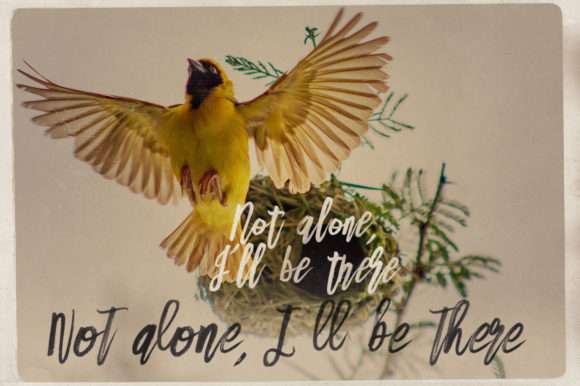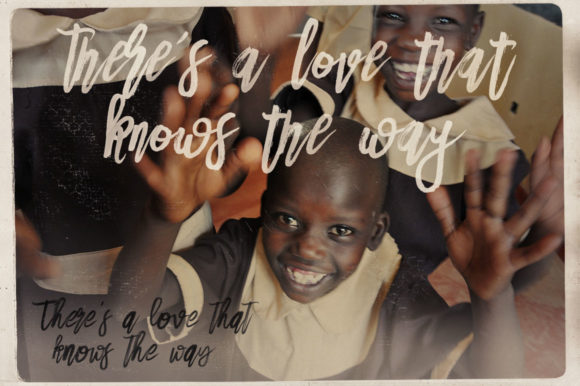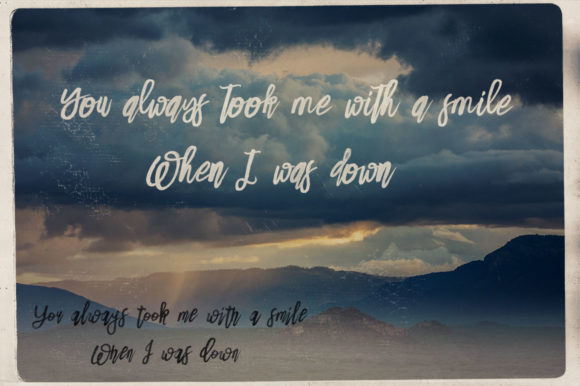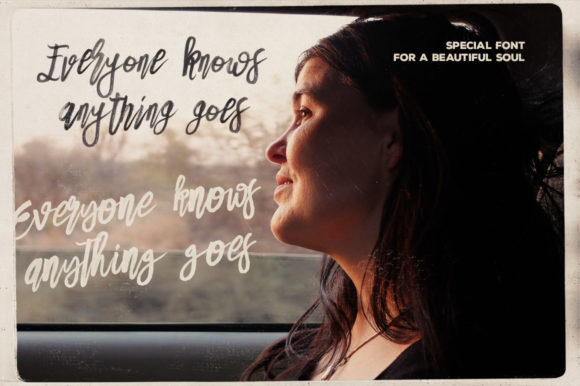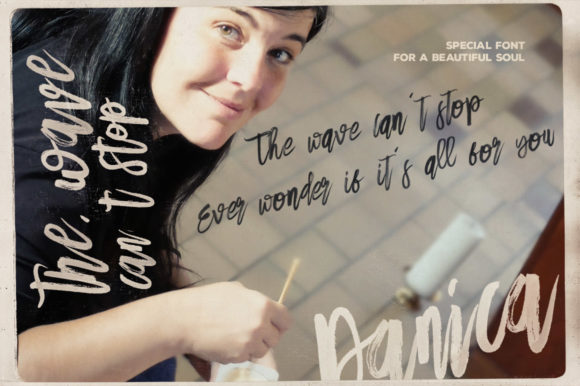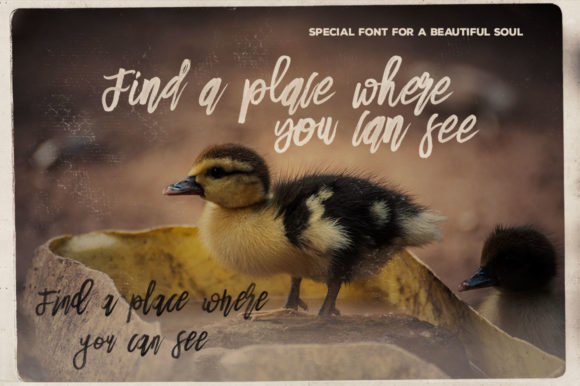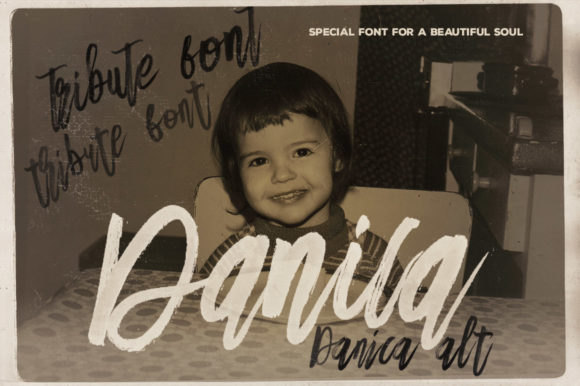
Introducing Danica Font: The Bold and Beautiful Handwritten Font
Are you tired of using the same old fonts in your design projects? Do you want to add a touch of personality and uniqueness to your creations? Look no further than Danica Font, a bold and beautiful handwritten font that’s sure to turn any design project into a standout!
What is Danica Font?
Danica Font is a stunning handwritten font that’s perfect for designers and crafters looking to add a personal touch to their work. With its cool and edgy feel, Danica Font is ideal for a wide range of design projects, from branding and advertising to packaging and digital media.
Key Features of Danica Font
• Bold and Beautiful: Danica Font is a bold and beautiful handwritten font that’s sure to grab attention.
• Cool Feel: With its cool and edgy vibe, Danica Font is perfect for designers who want to add a touch of sophistication to their work.
• Handwritten Style: Danica Font features a unique handwritten style that’s perfect for adding a personal touch to your designs.
• Versatile: Danica Font is versatile and can be used in a wide range of design projects, from print to digital media.
Why Choose Danica Font?
So why choose Danica Font over other fonts? Here are just a few reasons:
• Unique and Original: Danica Font is a unique and original font that’s sure to set your designs apart from the crowd.
• Easy to Read: Despite its bold and edgy feel, Danica Font is easy to read and understand, making it perfect for body text and headlines.
• Customizable: Danica Font is highly customizable, allowing you to adjust the font size, color, and style to suit your design needs.
• Time-Saving: With Danica Font, you can save time and effort by using a pre-designed font that’s ready to use.
How to Use Danica Font in Your Design Projects
Using Danica Font in your design projects is easy! Here are a few tips:
• Pair with Other Fonts: Pair Danica Font with other fonts to create a unique and visually appealing design.
• Use in Headlines: Use Danica Font in headlines and titles to add a touch of personality and flair.
• Experiment with Colors: Experiment with different colors and textures to add depth and interest to your designs.
• Use in Digital Media: Use Danica Font in digital media, such as social media graphics, blog posts, and website headers.
Who is Danica Font For?
Danica Font is perfect for:
• Graphic Designers: Graphic designers who want to add a touch of personality and uniqueness to their designs.
• Crafters: Crafters who want to create handmade cards, gift tags, and other paper crafts.
• Digital Artists: Digital artists who want to add a touch of whimsy and creativity to their digital art.
• Small Business Owners: Small business owners who want to create a unique and memorable brand identity.
In conclusion, Danica Font is a bold and beautiful handwritten font that’s perfect for designers and crafters looking to add a touch of personality and uniqueness to their work. With its cool and edgy feel, Danica Font is ideal for a wide range of design projects, from branding and advertising to packaging and digital media. So why wait? Download Danica Font today and start creating stunning designs that stand out from the crowd!